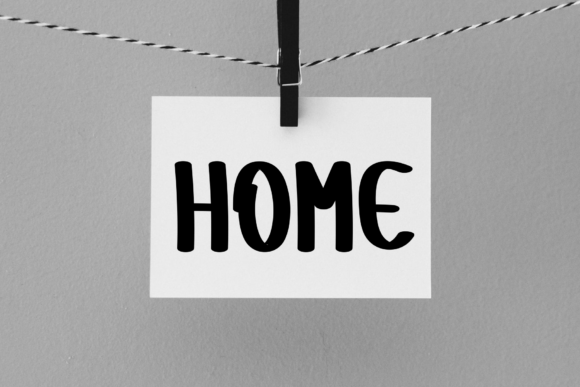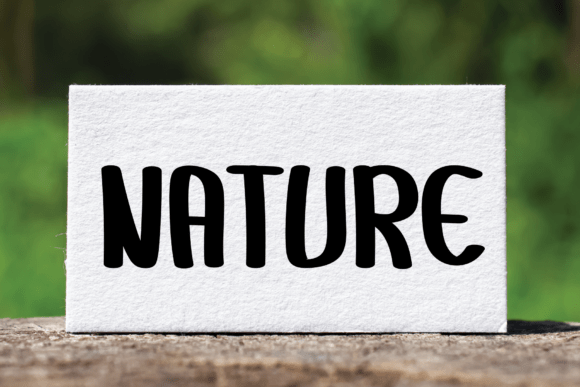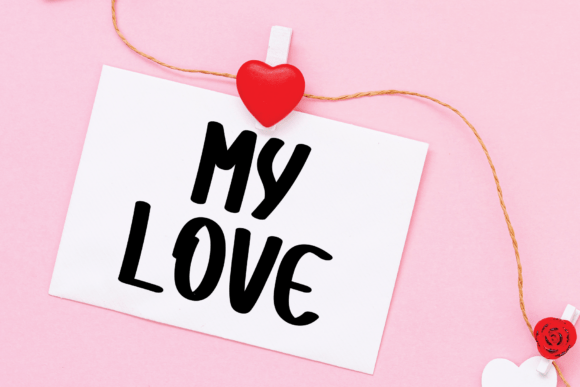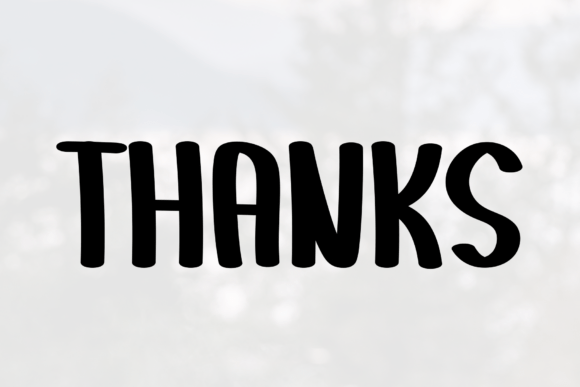
Unleashing the Funk: Discovering the Perfect Font for Your Next Design Project
Who hasn’t sat at their desk, staring blankly at a blank page, wondering how to bring their creative vision to life? You’re not alone. As designers, we’ve all been there, searching for that one special something to elevate our designs and make them truly unforgettable. And then, it hits you – the perfect font. For some, it’s a sleek sans-serif, while for others, it’s a playful script. For us, it’s the Anklet Funky Font, a handwritten font that screams fun, relaxation, and a hint of luxury.
With its casual, sporty feel, Anklet Funky Font is the perfect addition to any design project. Whether you’re creating a logo for a trendy fashion brand, designing a wedding invitation, or crafting a marketing promotion, this font brings a unique touch that sets your design apart from the rest. Its versatility and effortless charm make it an invaluable asset for designers looking to add a little extra oomph to their work.
Anklet Funky Font Key Features
- Font Style: Anklet Funky Font is a funky, casual script font, ideal for creative projects.
- Character Set: Anklet Funky Font includes a comprehensive character set, including uppercase and lowercase letters, numerals, and special characters.
- Unique Characteristics: Anklet Funky Font features a unique, hand-drawn design with a funky, playful feel.
Designer Review: Anklet Funky Font
First off, I want to say that I’m a fan of Anklet Funky Font’s quirky charm. It’s perfect for projects that need a fun, eye-catching vibe. ✨ The font’s irregular shapes and playful feel make it great for titles, headings, and other emphasis areas. ✨ Its boldness and uniqueness can definitely make a design stand out.
However, I do have some reservations about its use. ✨ One of the main limitations is its potential overuse. Anklet Funky Font can be a bit too loud, so it’s essential to balance it with more neutral fonts to avoid overwhelming the viewer. ⚠️ Another issue is its limited legibility at smaller font sizes. If the text needs to be displayed in a smaller format, Anklet Funky Font might not be the best choice.
Key Takeaways:
- Quirky, eye-catching design perfect for projects that need a fun vibe ✨
- Limited legibility at smaller font sizes ⚠️
- May be overused if not balanced with neutral fonts ⚠️
Overall, Anklet Funky Font is a great choice when used judiciously. It’s perfect for projects that need a playful, attention-grabbing element. Just be mindful of its limitations, and you’ll be able to harness its full potential.
Anklet Funky Font Practical Application Guide
Tips for Getting the Most Out of Anklet Funky Font
Here are some tips to help you get the most out of Anklet Funky Font:
- Use the font in combination with bold or italic styles to add emphasis.
- Use Anklet Funky Font for creative projects, such as graphics, posters, or social media assets.
Alternatives to Anklet Funky Font for Designers
Great Vibes is a fun, cursive script font perfect for creating a playful and carefree atmosphere. It’s ideal for use in headings, titles, and other design elements where you want to convey a sense of relaxation and joy.
Compared to Anklet Funky Font, Great Vibes is more elegant and refined, making it suitable for a wider range of design applications. While Anklet Funky Font is more playful and childlike, Great Vibes is more sophisticated and mature.
What is the recommended font size for Anklet Funky Font?
For optimal readability, we recommend using Anklet Funky Font at a minimum size of 24 points. However, feel free to experiment with different font sizes to achieve the desired look and feel for your design.